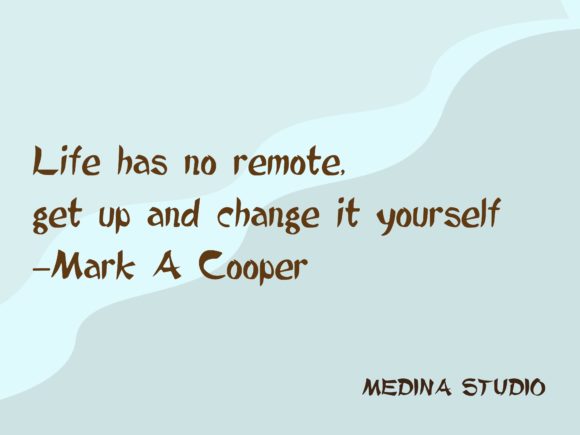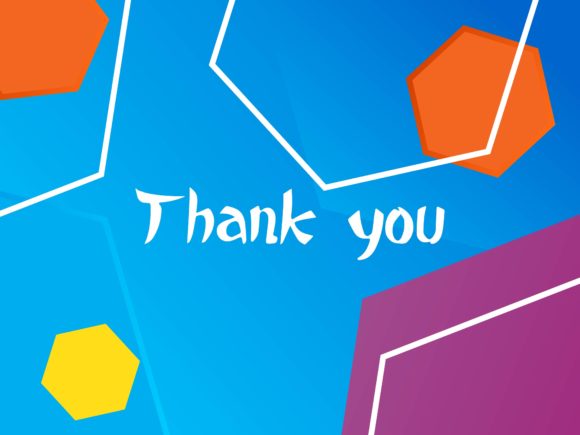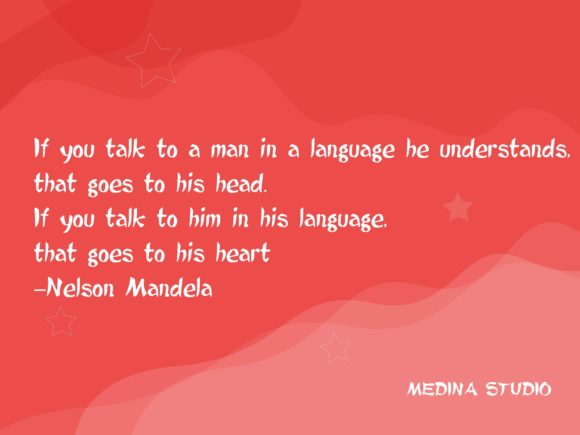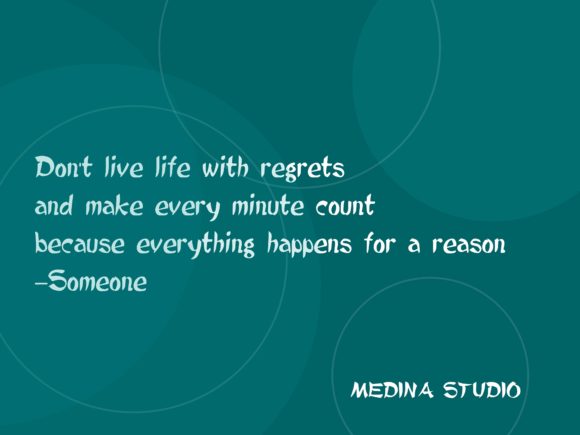
The Ultimate Guide to Grisham Font: A Cool and Playful Display Font
Ah, the elusive perfect font. You know, that one moment when you’re working on a project, and everything is coming together – the design, the colors, the layout – but then, you hit a roadblock: the font. I recall a particularly frustrating experience when I was designing a menu for a trendy new café. I wanted something that would pop, something that would make their offerings look irresistible. That’s when I stumbled upon Grisham Font. It was love at first sight! In this article, we’ll dive into what makes Grisham so special, its features, and how you can make the most of it in your designs.
An Honest Review of Grisham Font
So, what makes Grisham Font stand out from the crowd? Let’s take a closer look.
- ✨ Unique and Playful Style: Grisham has a quirky charm that can add a lot of character to your designs.
- ✅ Versatile: Whether you’re working on a food menu, a poster, flyer, or any print material, Grisham fits right in.
- 💡 Excellent for Headings and Titles: Its display nature makes it perfect for grabbing attention.
While Grisham is an amazing font, it’s not without its quirks.
- 🤔 Legibility at Small Sizes: Like many display fonts, Grisham can get a bit tricky to read when scaled down. It’s best used for headlines and titles rather than body text.
- ⚠️ Overuse: Because it’s so attention-grabbing, it’s easy to overuse Grisham. Balance is key to keeping your design looking fresh.
The Backstory of Grisham Font
Grisham Font was designed with the intention of bringing a playful yet sophisticated feel to the world of typography. While the specific designer and their inspirations might not be widely documented, it’s clear that Grisham was crafted to stand out. The designer likely drew inspiration from a mix of vintage typography and modern design trends, aiming to create a font that’s both fun and functional.
| Author | SlkVisual |
Q: What type of projects is Grisham Font best suited for?
A: Grisham Font is ideal for projects that require a playful yet impactful touch, such as food menus, posters, flyers, and any print materials where you want to grab attention.
Q: Can I use Grisham Font for body text?
A: While Grisham is primarily a display font, it’s not recommended for body text due to legibility issues at smaller sizes. It’s best used for headings and titles.
Grisham Font is a versatile and charming addition to any designer’s toolkit. Its unique blend of playfulness and sophistication makes it perfect for a wide range of projects. By understanding its strengths and limitations, and learning how to effectively use it across different platforms, you can unlock endless possibilities for your designs. So go ahead, give Grisham a try, and see how it can elevate your creative projects!